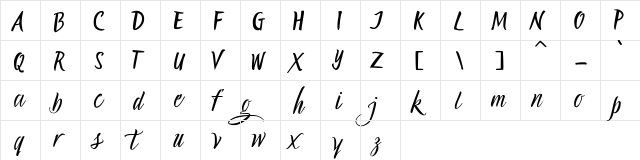
Holiday Romance Demo Regular
Design Context for Holiday Romance Demo Typeface
Holiday Romance Demo is a composed and adaptable typeface that performs quietly and consistently across a wide range of design contexts.
Pro Tip: Use Holiday Romance Demo in both headline and body roles to test its range before committing to a single application.